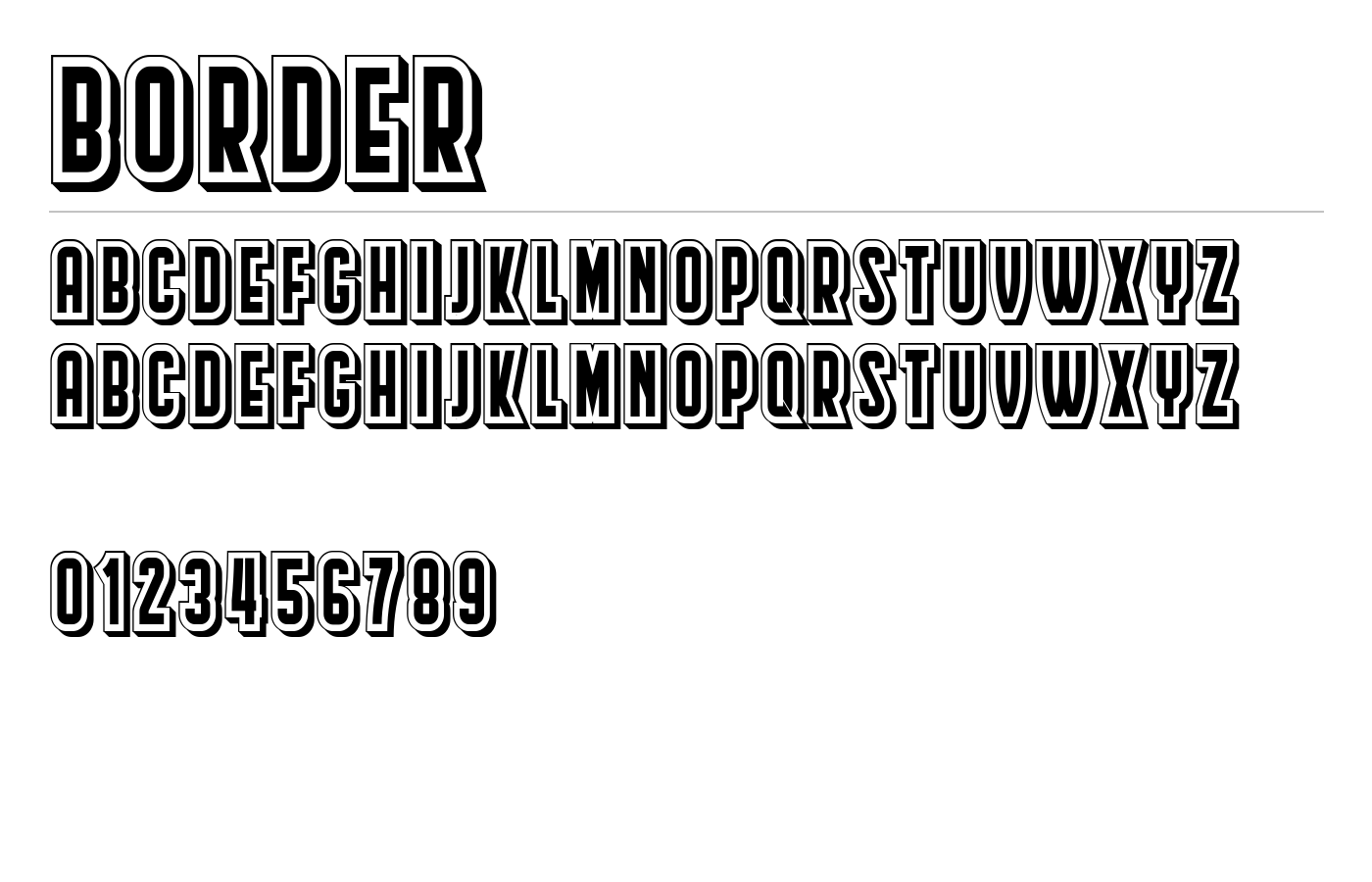
Border Font is a bold, condensed sans serif typeface with a striking three-dimensional shadow effect that gives it a strong, vintage-inspired character. Its uppercase-only style, clean lines, and high contrast between the solid fill and outlined shadow make it perfect for attention-grabbing headlines, signage, and branding that needs a retro yet modern feel. This font works best in display settings where its unique layering and sharp edges can stand out and add personality.
Border Font
About Border Font